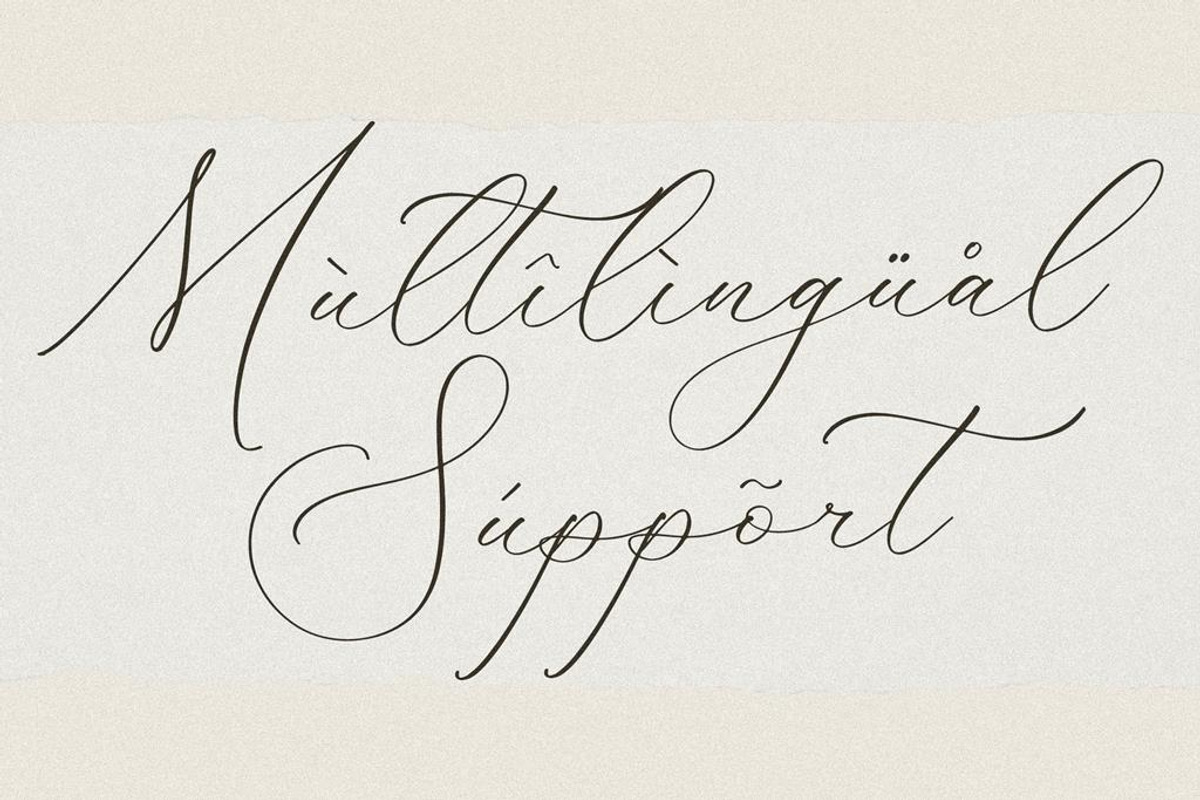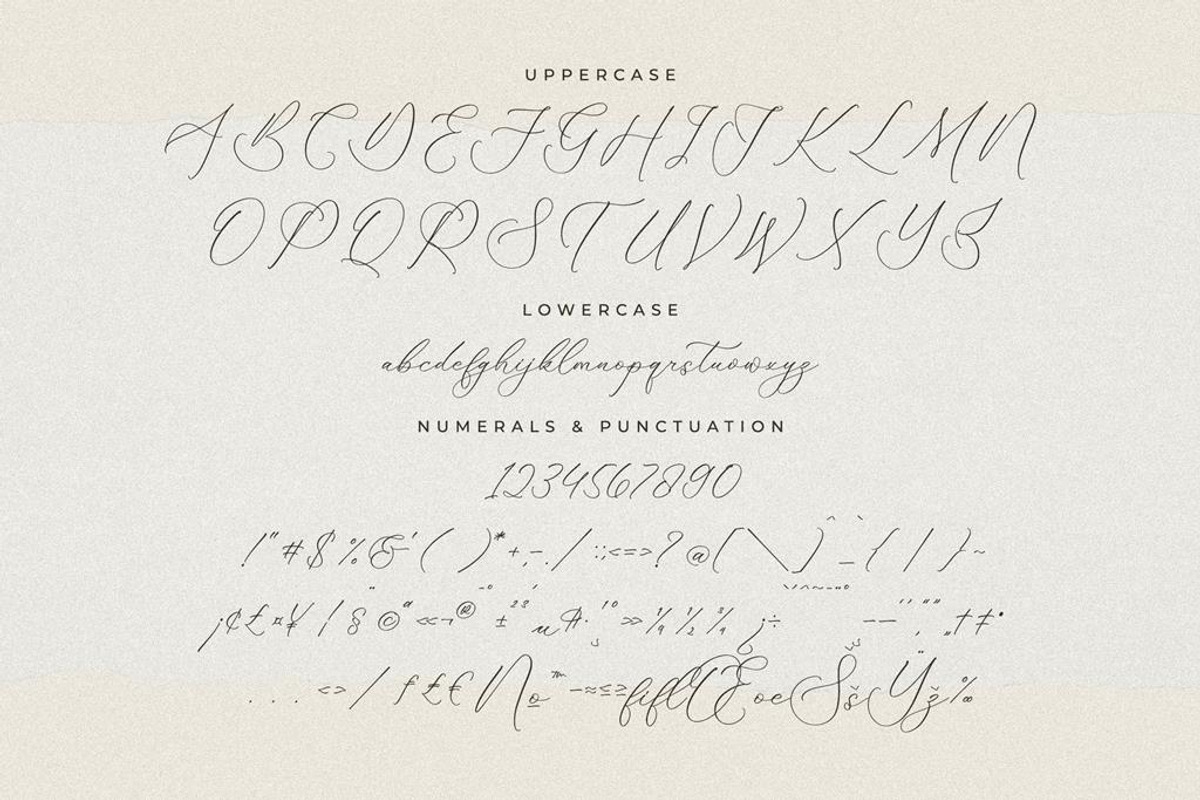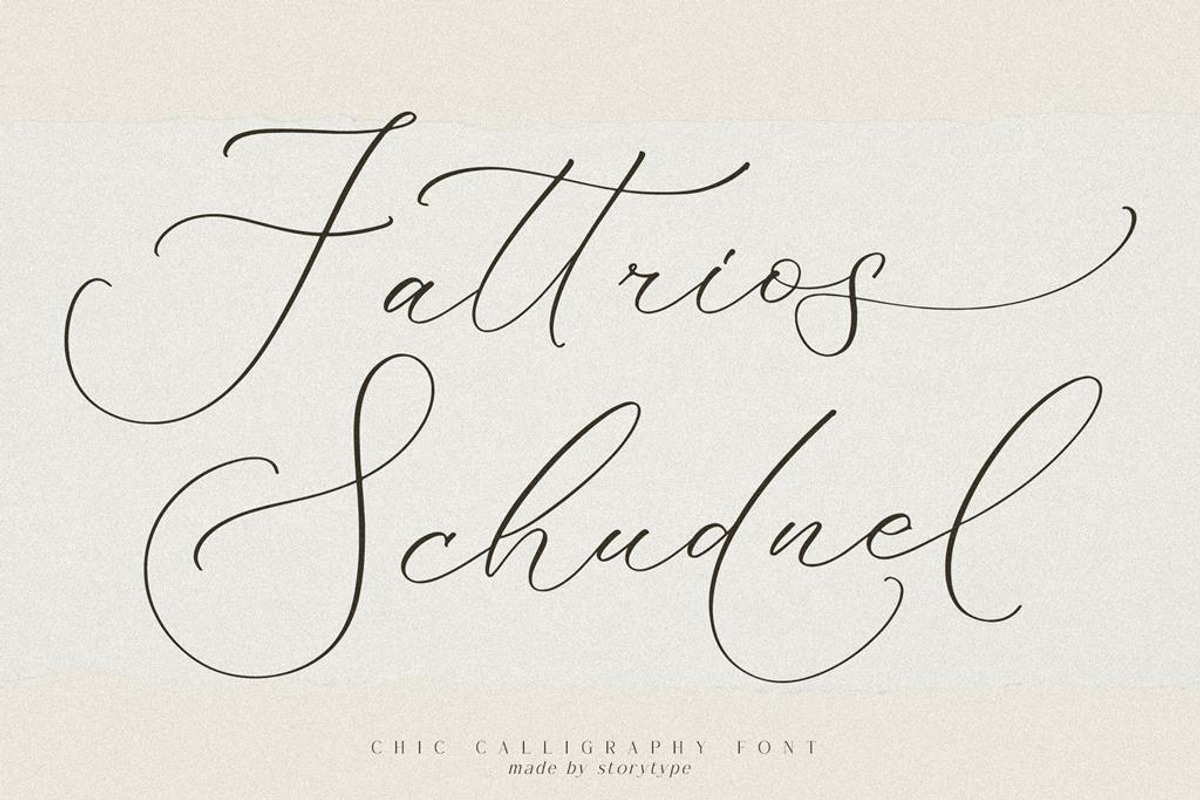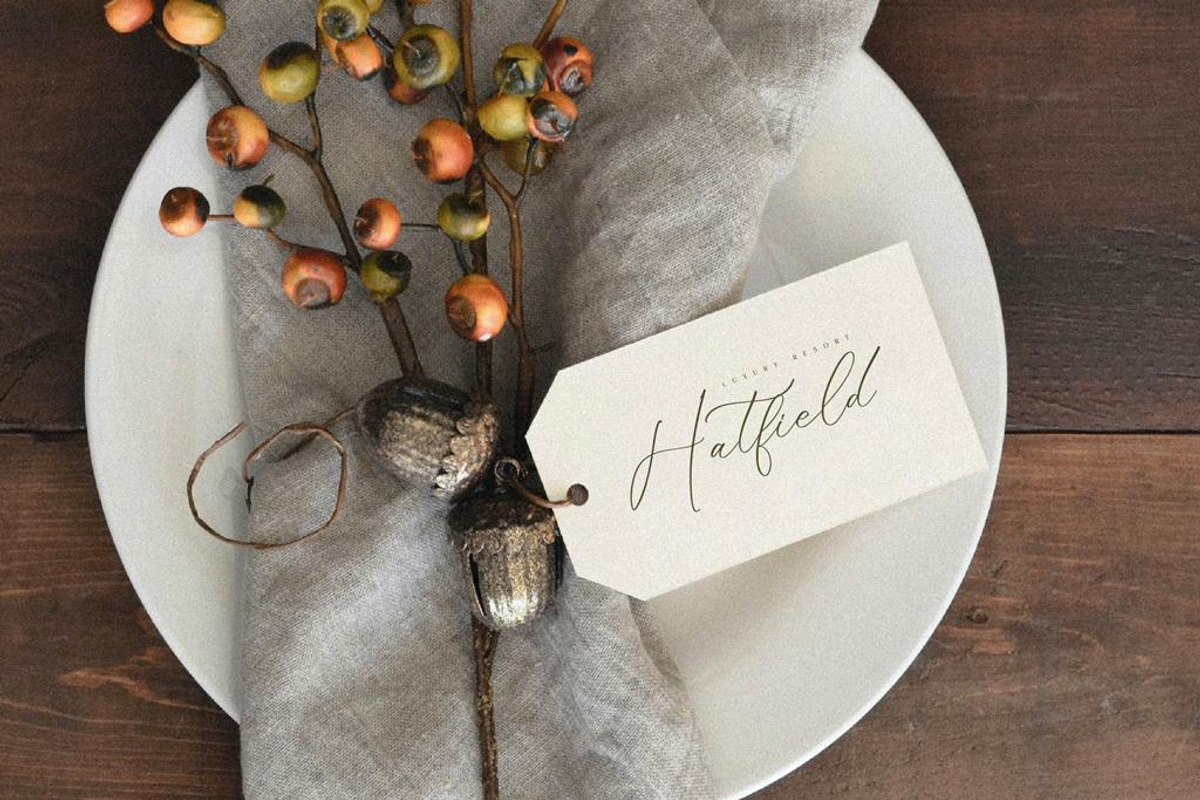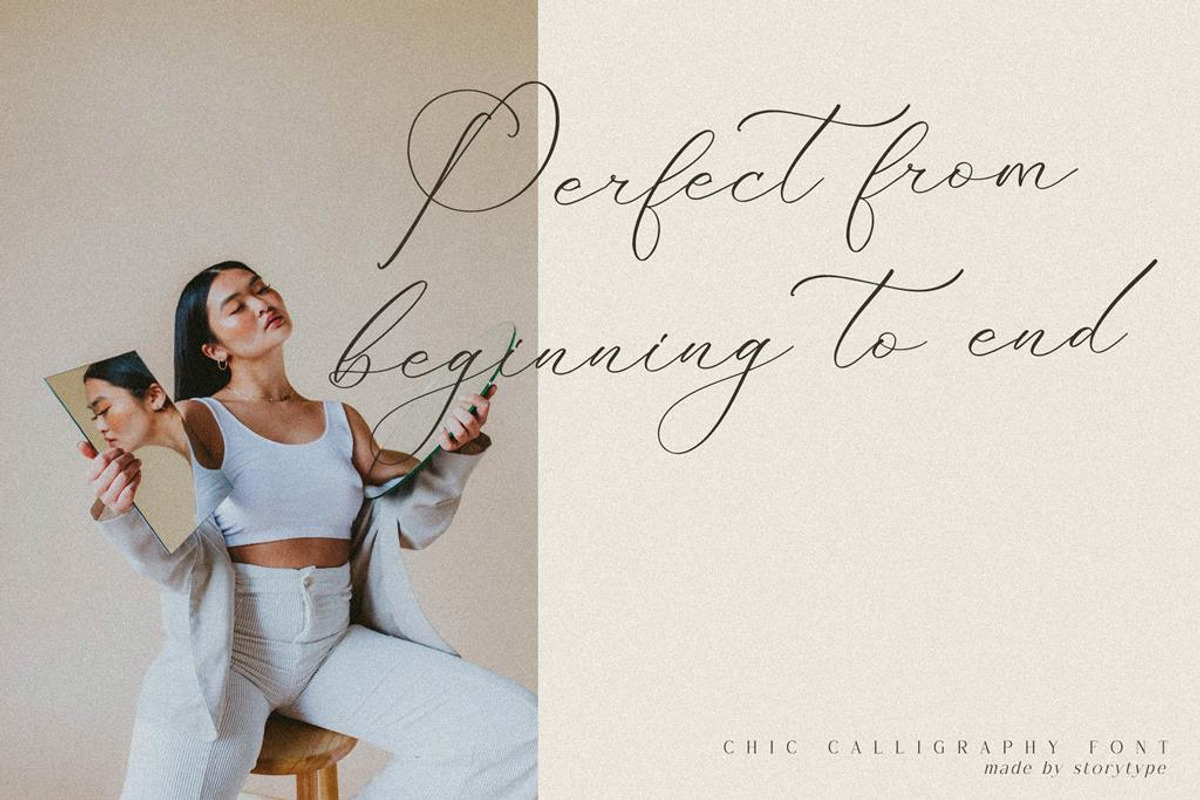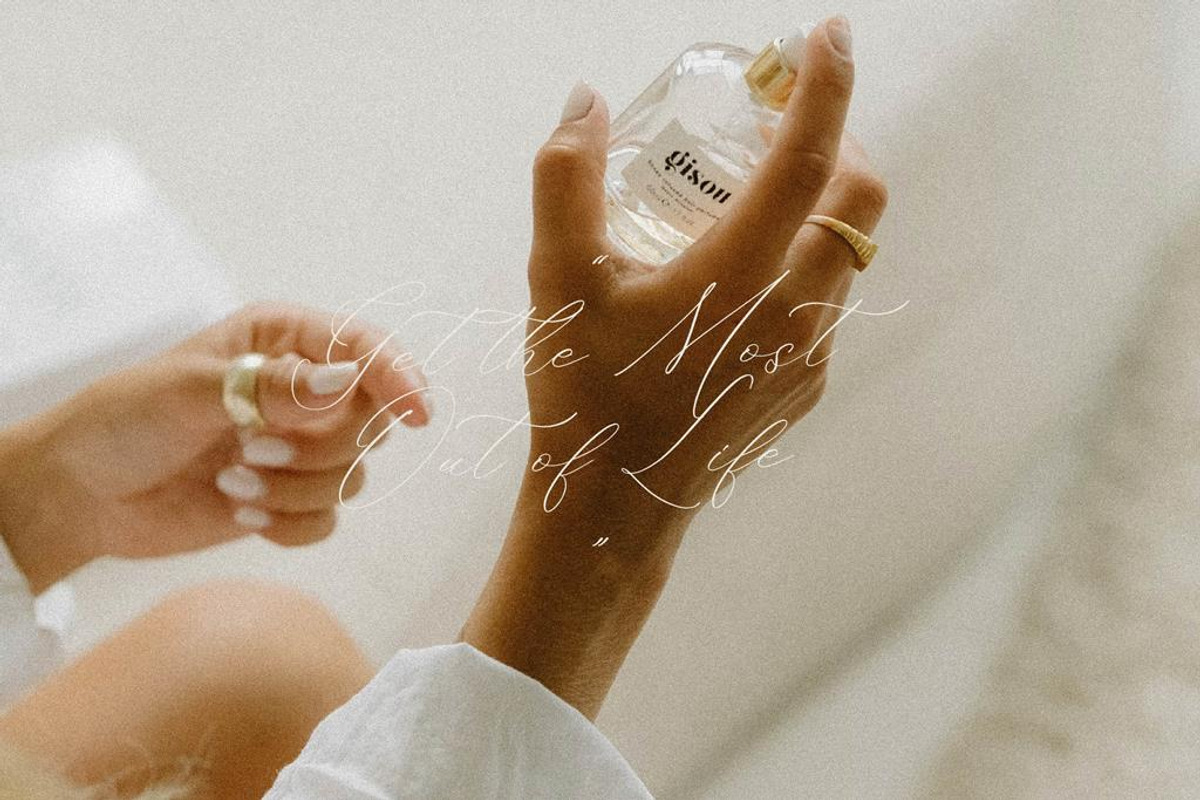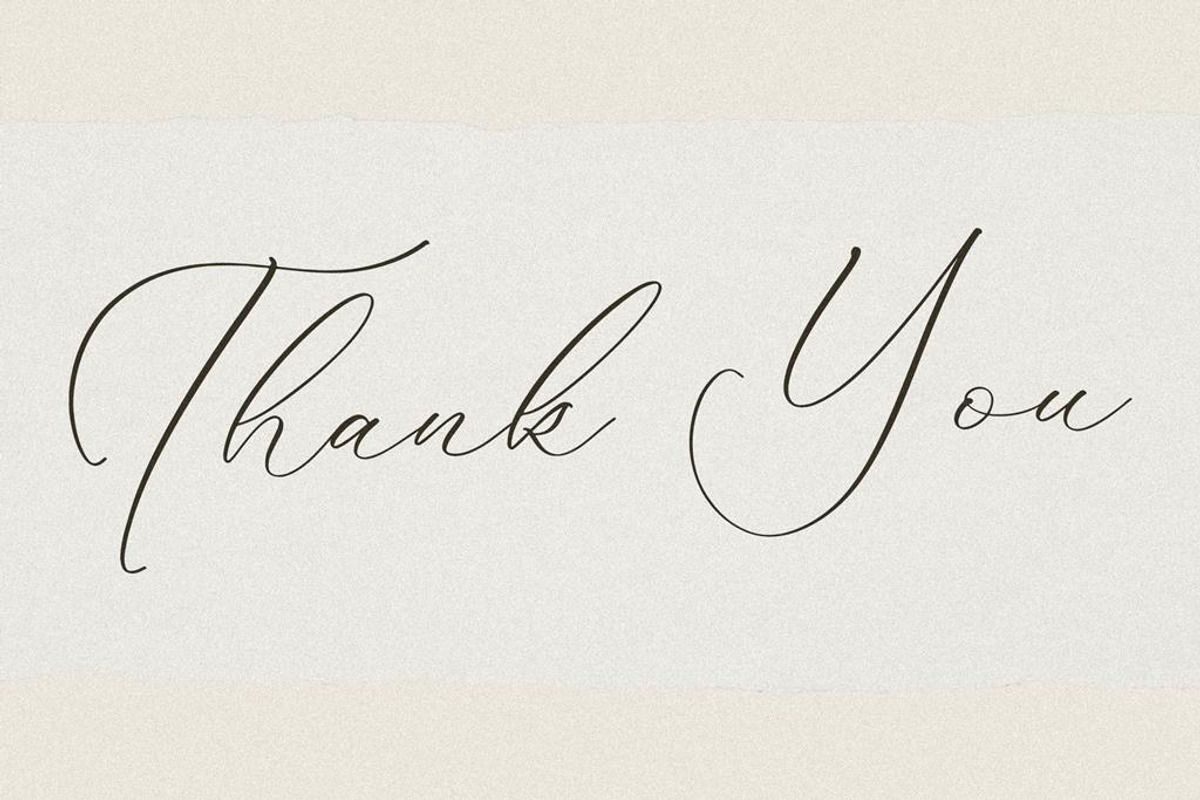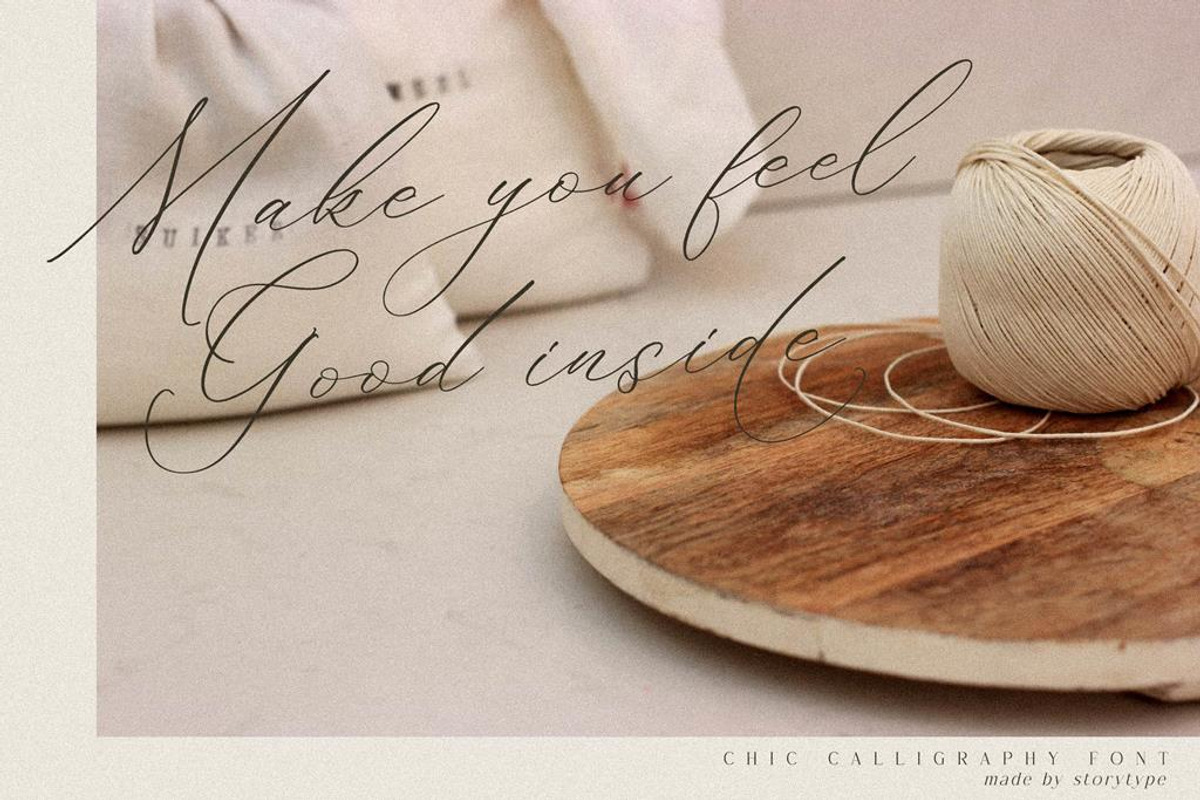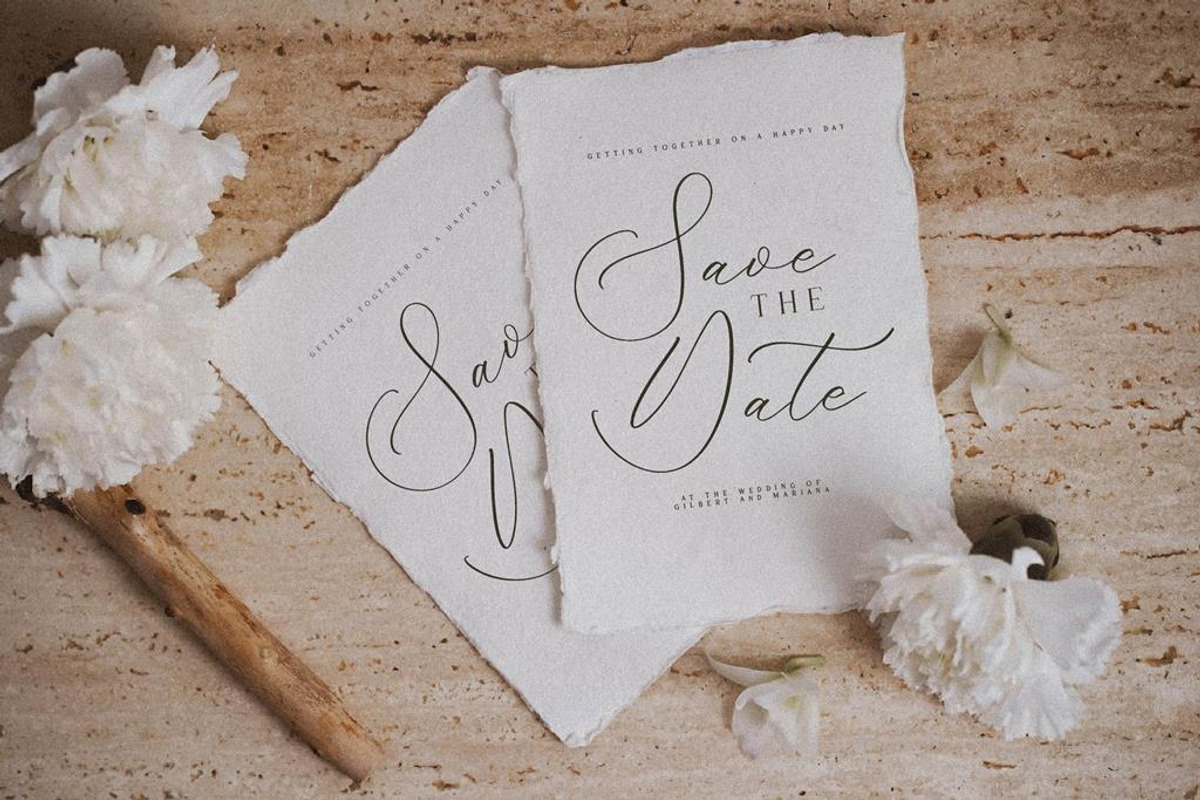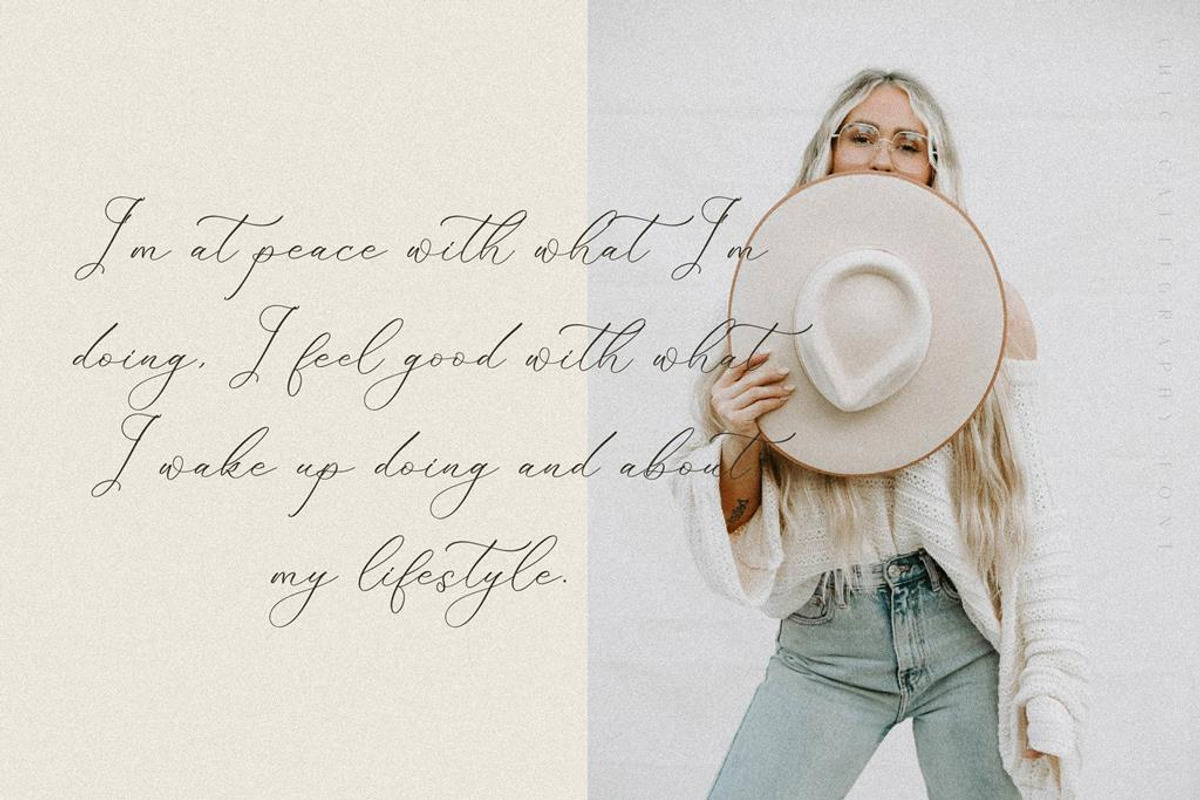
Fattrios Schudnel Chic Calligraphy
Proudly present Fattrios Schudnel - Chic Calligraphy Font , created by Storytype, A luxury script that has own unique style & modern look. This typeface is perfect for an elegant & luxury logo, book or movie title design, fashion brand, magazine, clothes, lettering, quotes, and so much more.